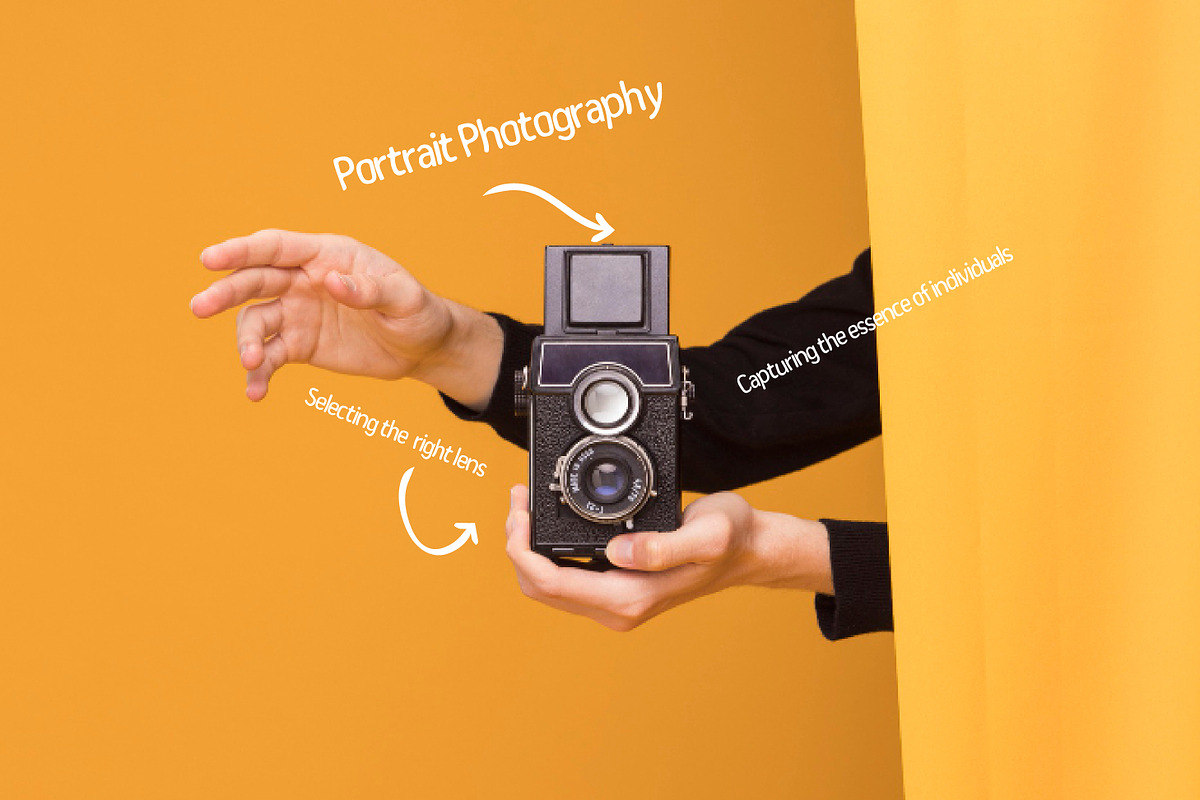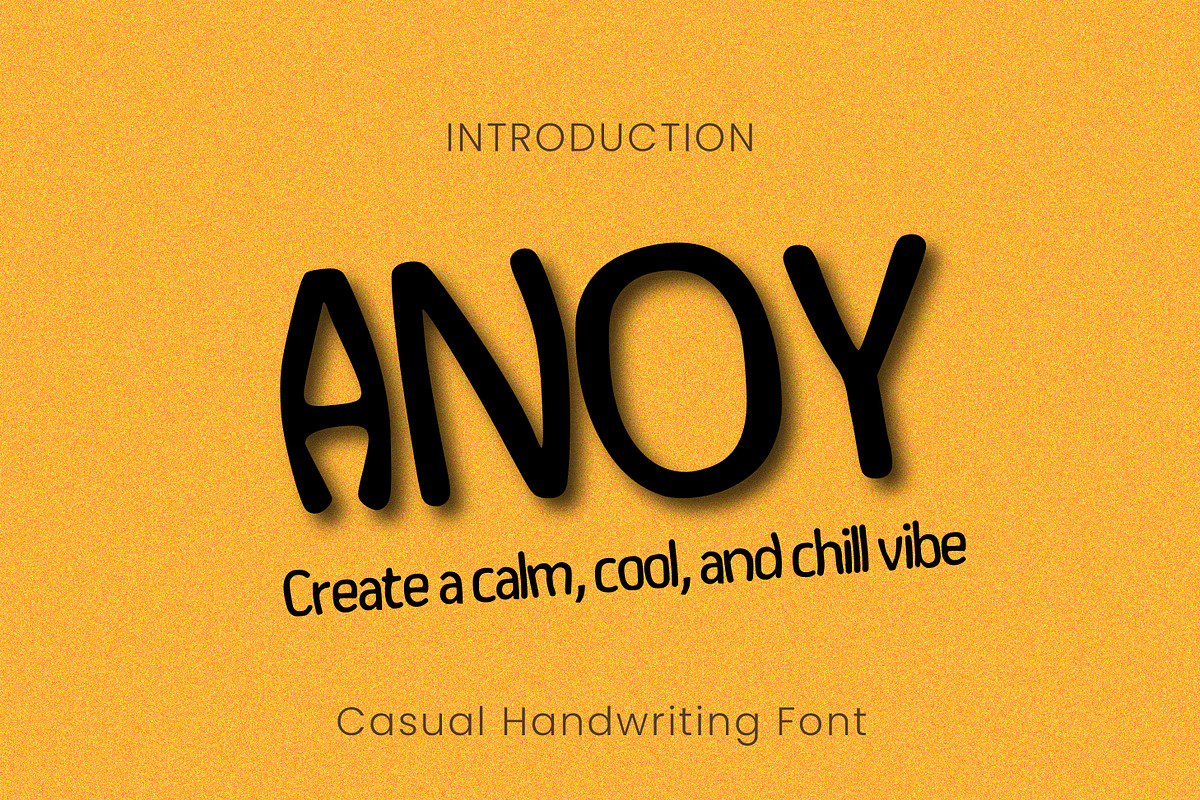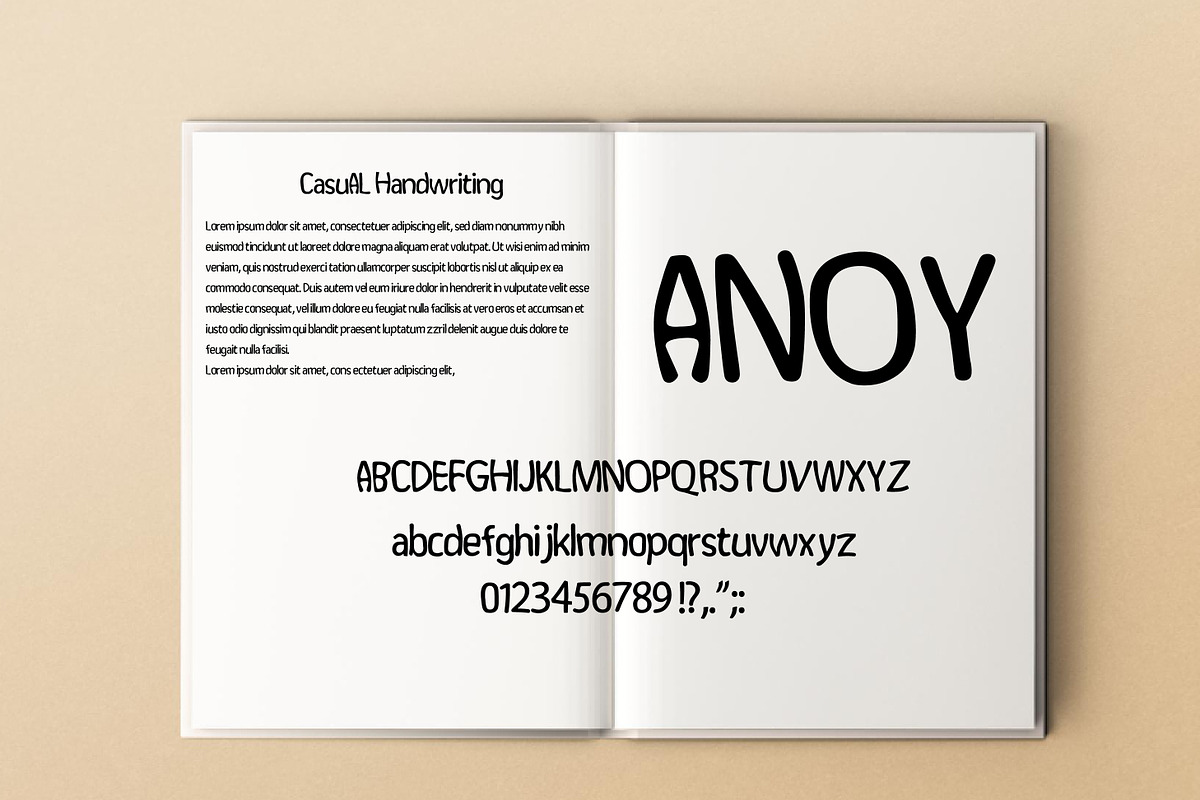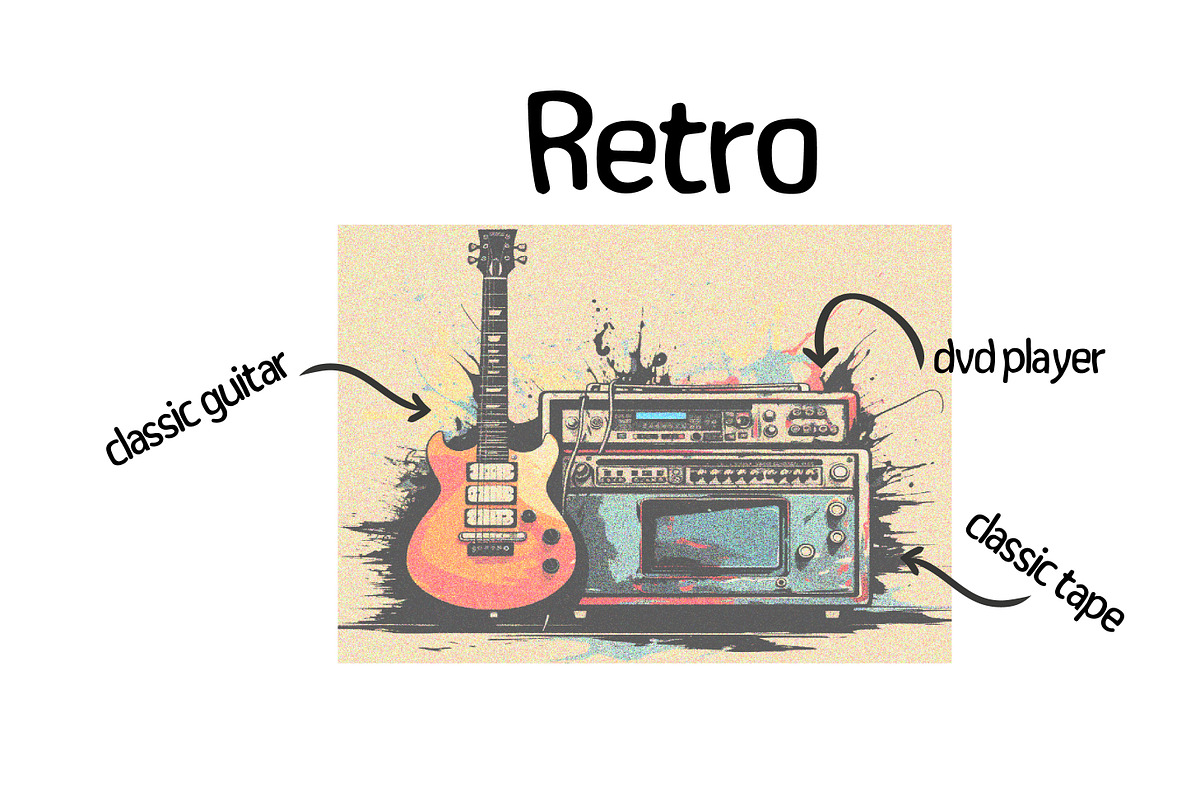
Anoy - Casual Handwriting Font
Anoy is a cool, calm & chill marker typeface with an organic feel and effortless vibe.
Bringing a casual, handwritten elegance, it's perfect for your next design. Whether you're crafting a logo, writing poetry, creating social media graphics, or working on photography, Anoy versatility will take your work to the next level.